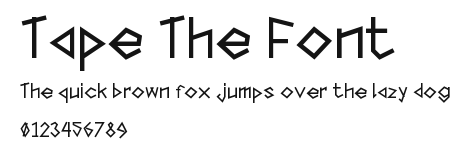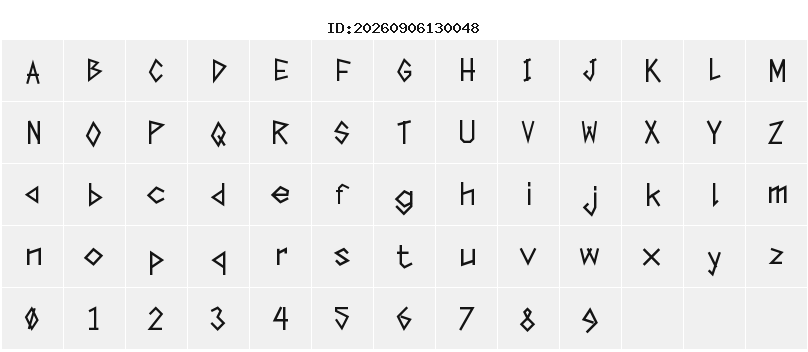
• Font Name: Tape The Font
• Font ID: Tape The Font:Version 1.00
• Full Font Name: Tape The Font
• Version: Version 1.00 December 8, 2010, initial release
• PostScript Name: TapeTheFont
• Character Count: 68
About Tape The Font.ttf
Tape The Font.ttf is a modern, elegant sans-serif font designed for ultimate readability and visual harmony. Perfect for branding, headlines, web design, and print materials.